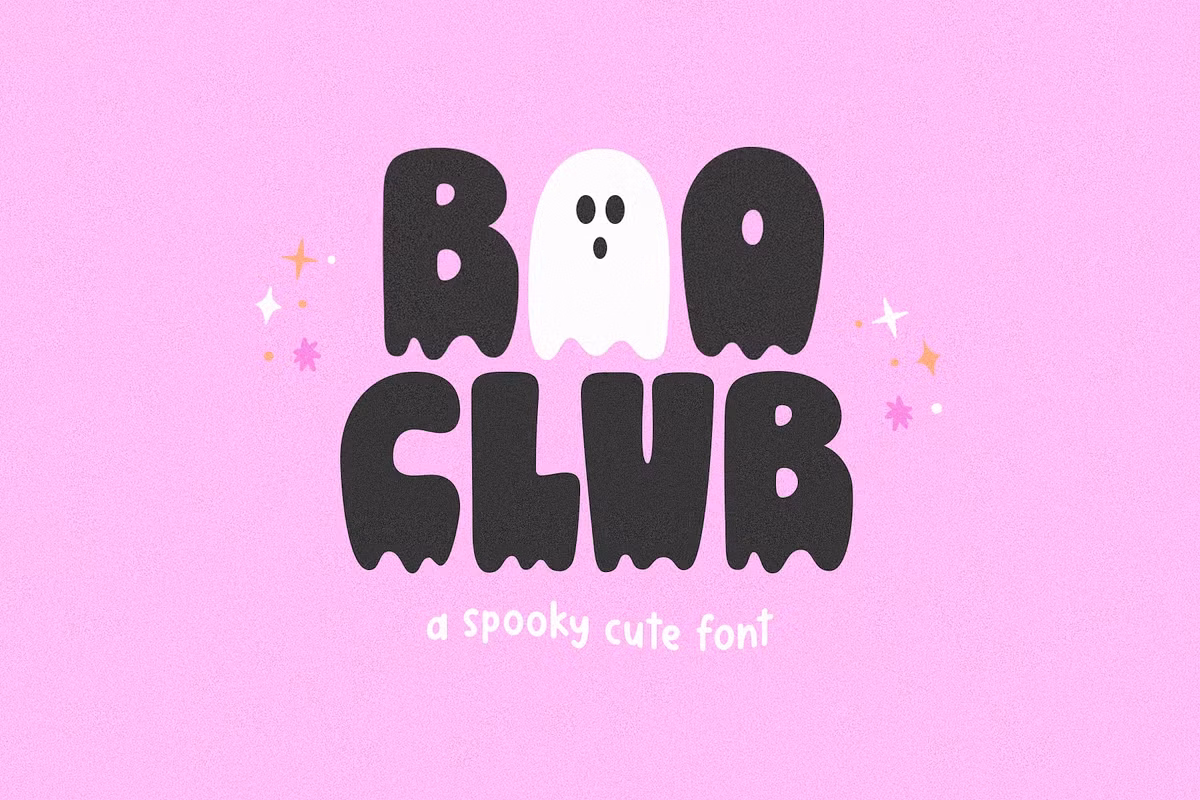
Boo Club | Halloween Font Free Download
Boo Club | Halloween Font Free Download is a fun, spooky, and slightly mischievous typeface designed to bring your Halloween creations to life. With its quirky character shapes and playful horror vibes, this font is perfect for party invites, trick-or-treat signage, themed packaging, and creepy-cute social media graphics.
Whether you’re hosting a haunted bash or launching a Halloween campaign, Boo Club | Halloween Font Free Download delivers the perfect balance between fright and fun. Its cartoonish curves and spooky flair make it ideal for kid-friendly designs, while still adding enough edge for more grown-up ghoulish projects.
Use it to create spellbinding posters, eerie labels, or magical merchandise. It pairs especially well with illustrated ghosts, pumpkins, and all things that go “boo” in the night.
So join the club—the Boo Club—where every letter is a little scream and a whole lot of style.